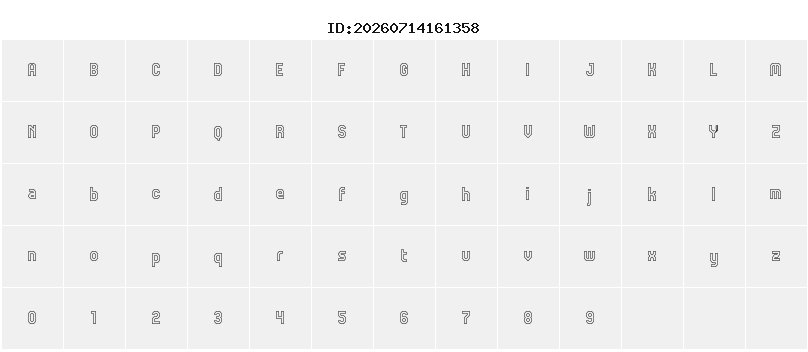
• Font Name: JD Garden
• Font ID: FontStruct JD Garden
• Full Font Name: JD Garden Regular
• PostScript Name: JD-Garden
• Character Count: 138
• Copyright: Copyright Jecko Development 2011 “JD Garden” is based on “zlabyrinths eYe/FS” by “Antonio J. Morata” (http://fontstruct.com/fontstructors/elmoyenique)
• Designer: Jecko Development
• Manufacturer: http://fontstruct.com
• Description: “JD Garden” was built with FontStruct “JD Garden” is based on “zlabyrinths eYe/FS” by “Antonio J. Morata” (http://fontstruct.com/fontstructors/elmoyenique)
About JD Garden.ttf
JD Garden.ttf is a modern, elegant sans-serif font designed for ultimate readability and visual harmony. Perfect for branding, headlines, web design, and print materials.